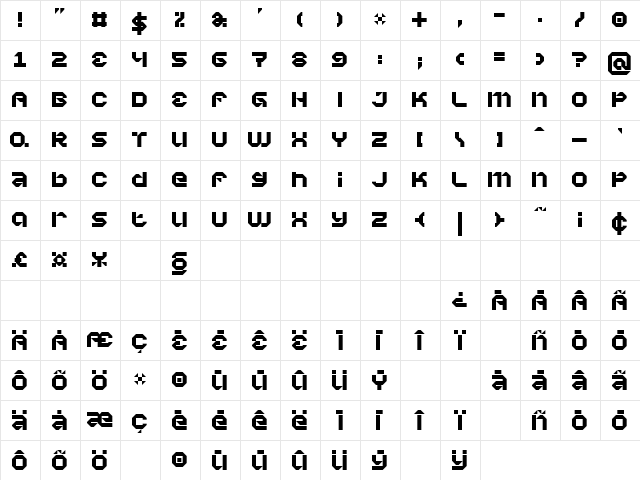
Vaporbyte Phat Regular
Design Context for Vaporbyte Phat Typeface
Vaporbyte Phat is a composed and adaptable typeface that performs quietly and consistently across a wide range of design contexts.